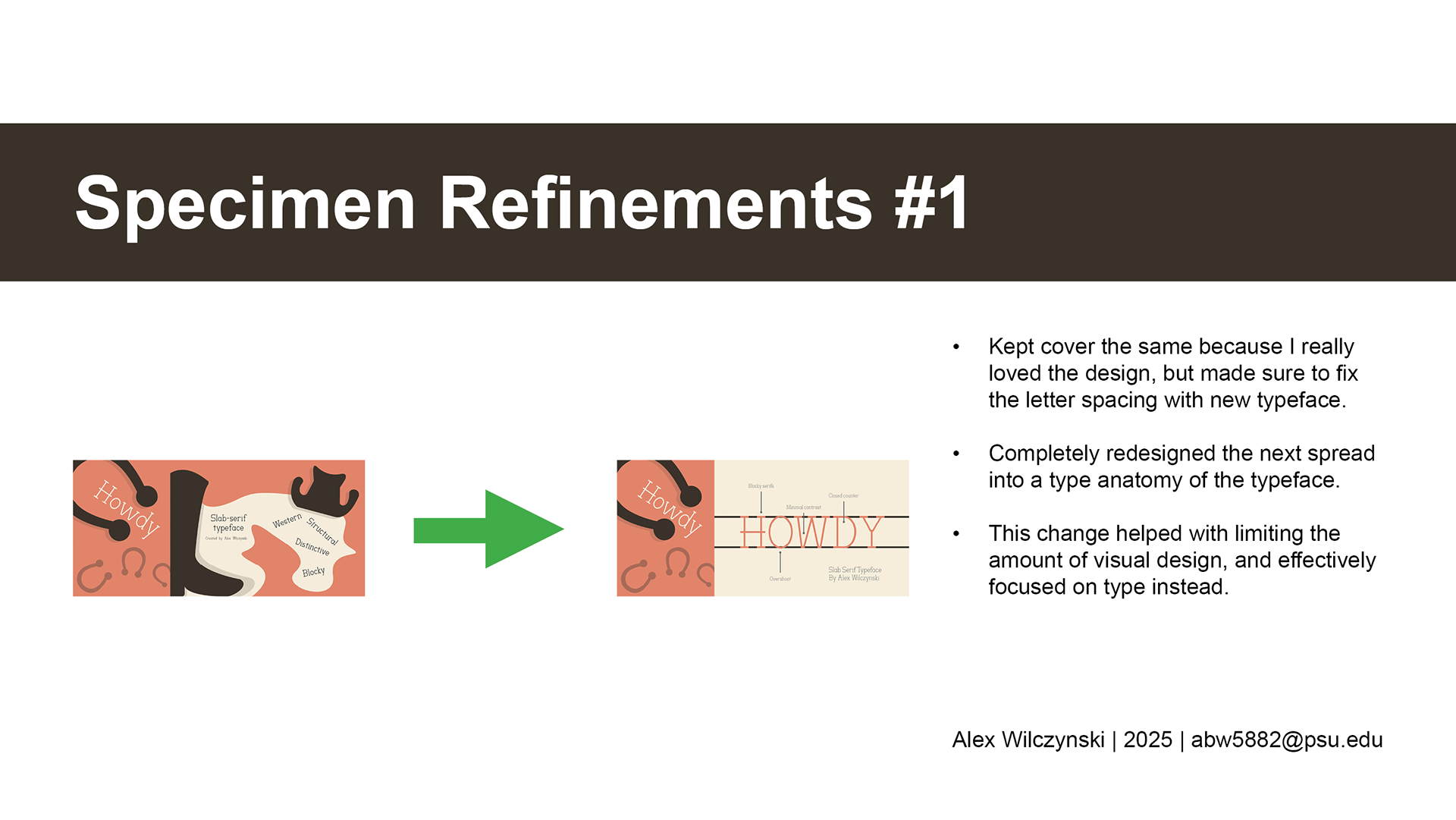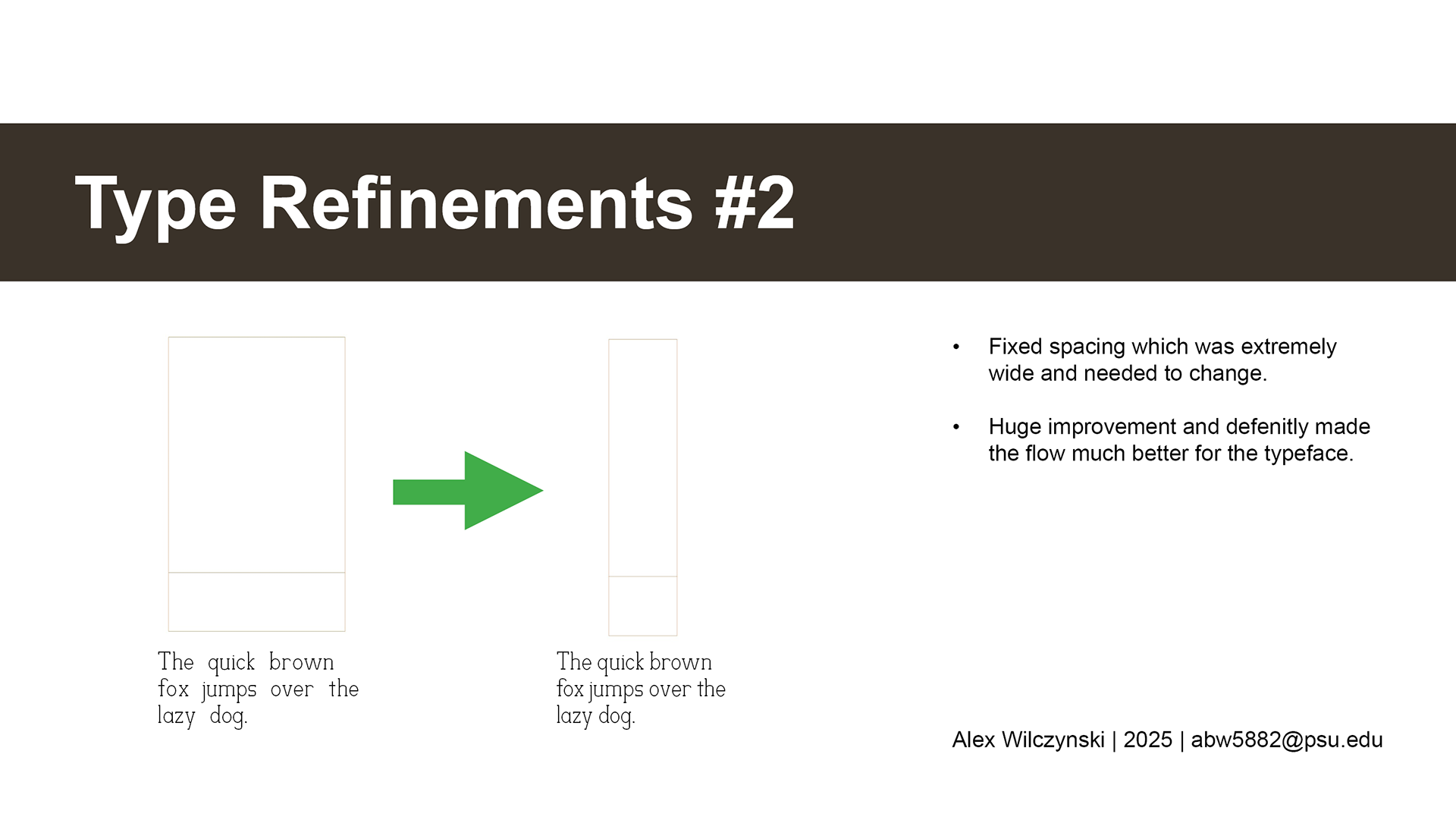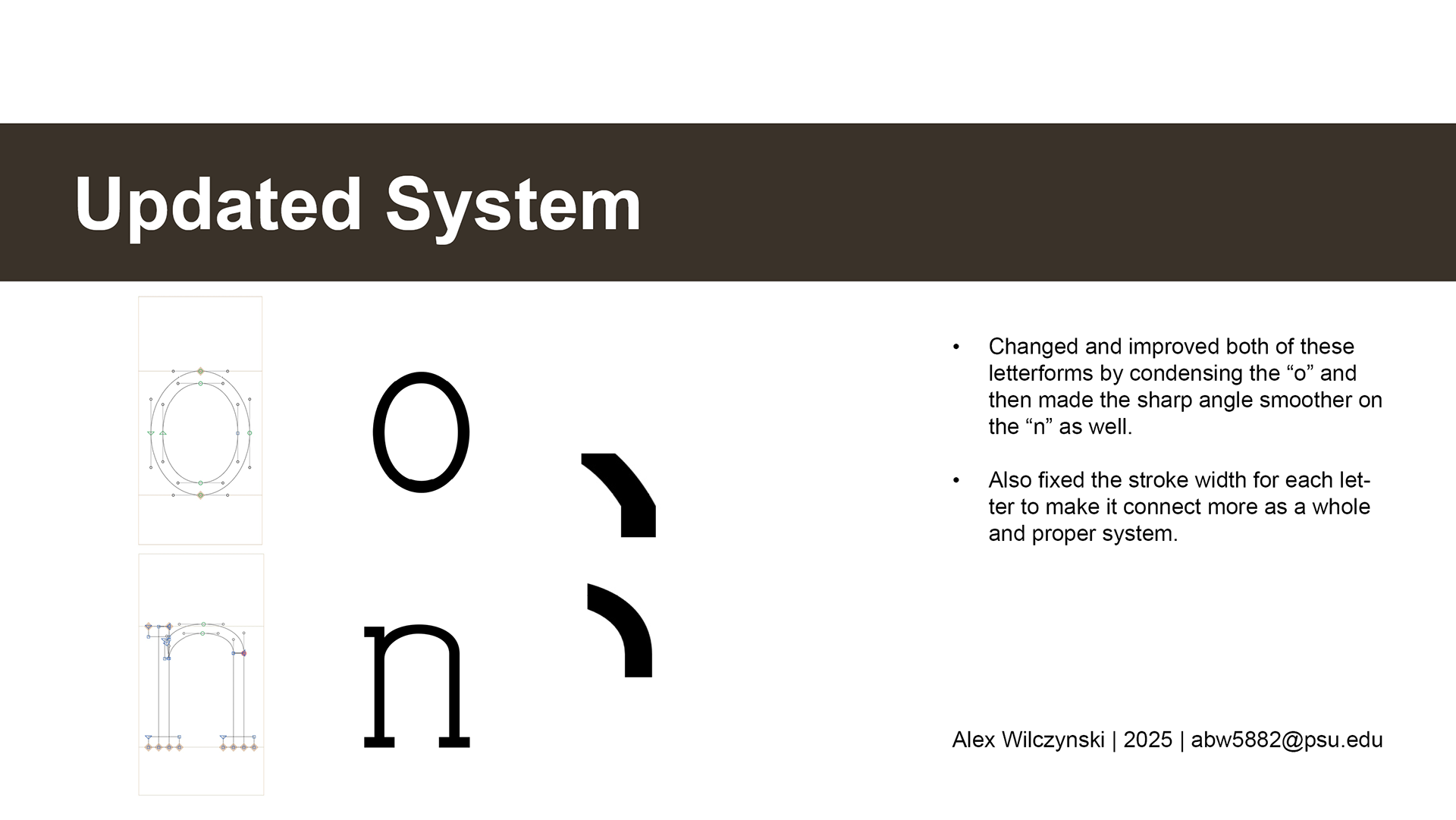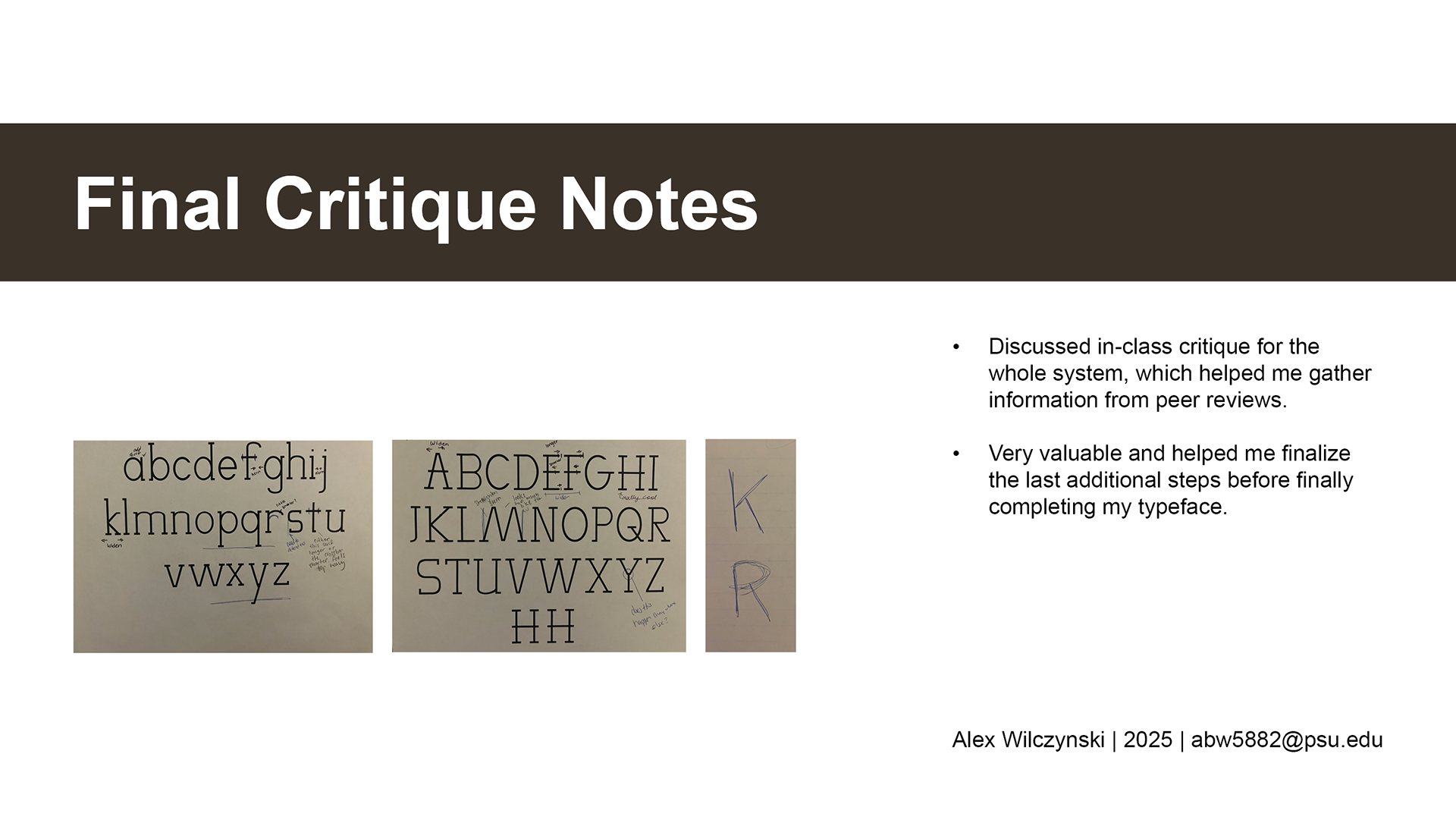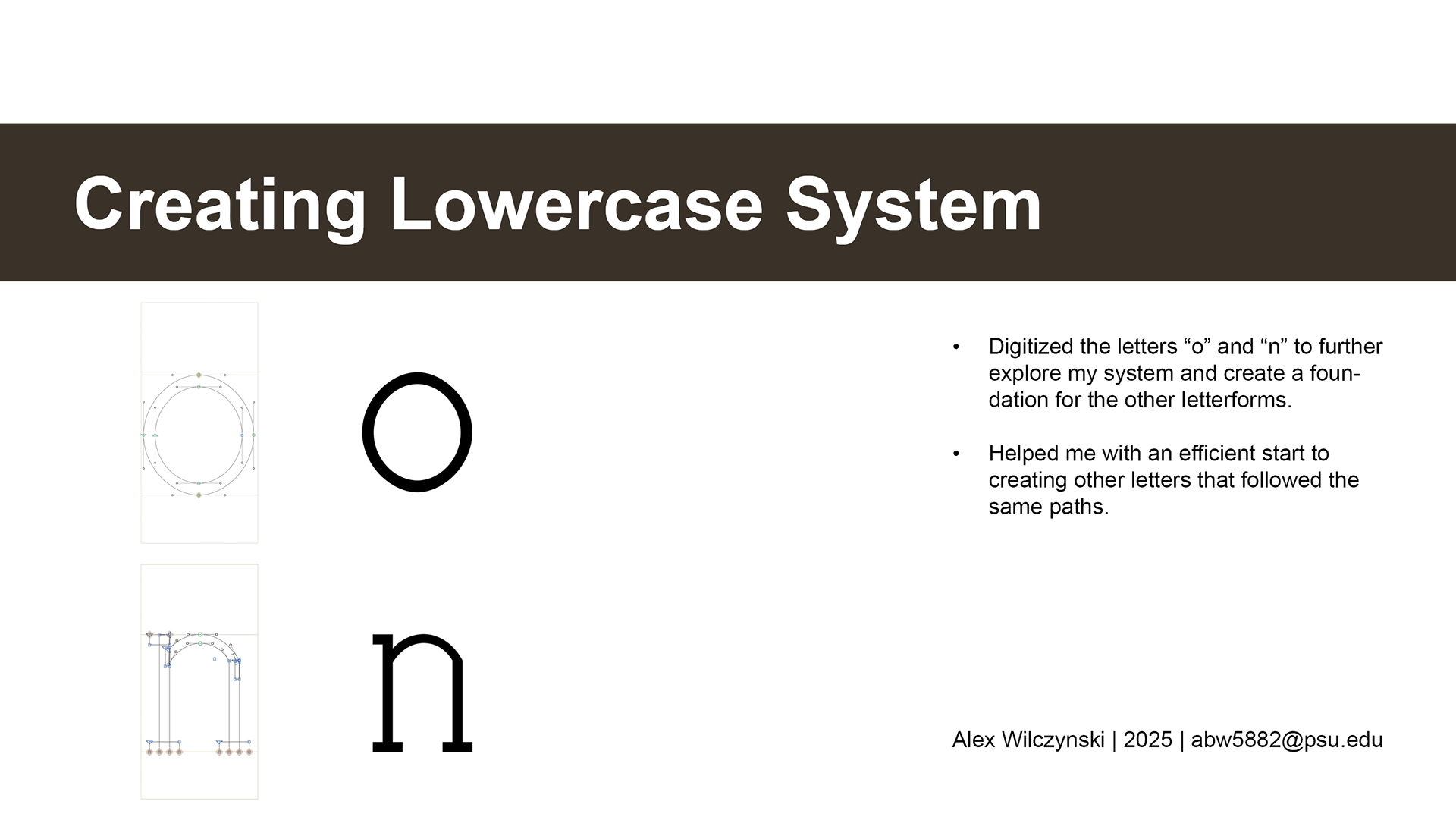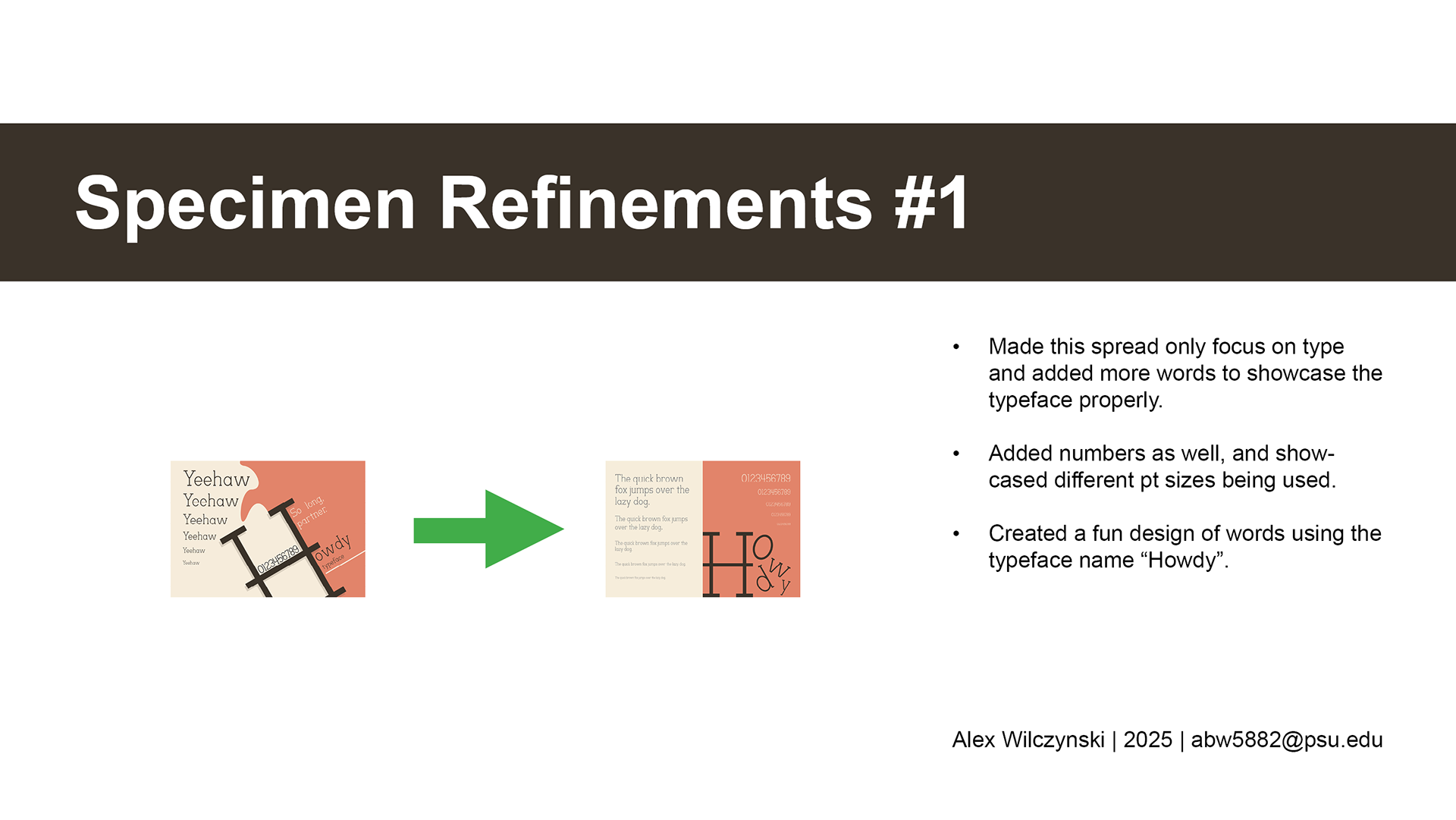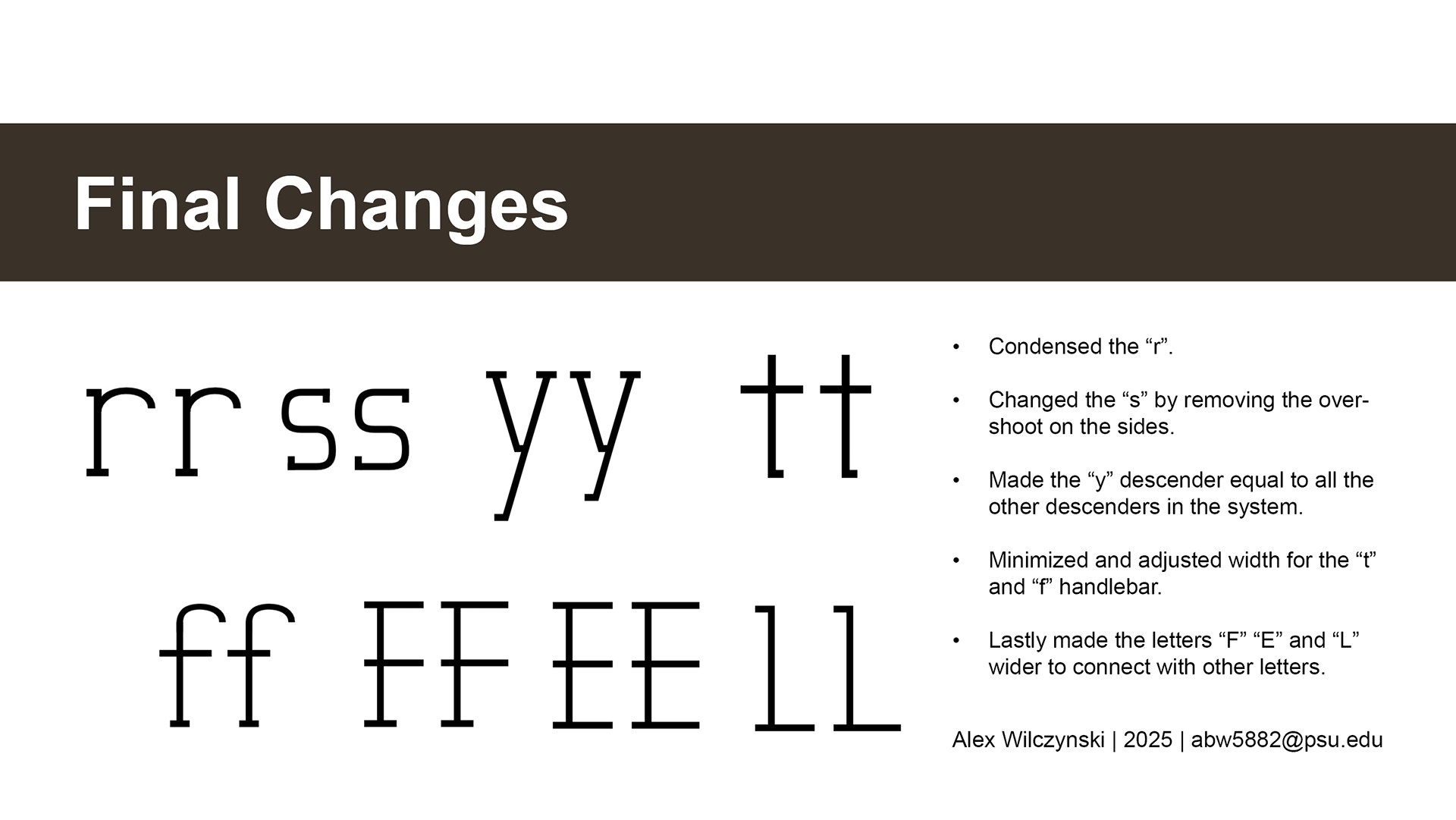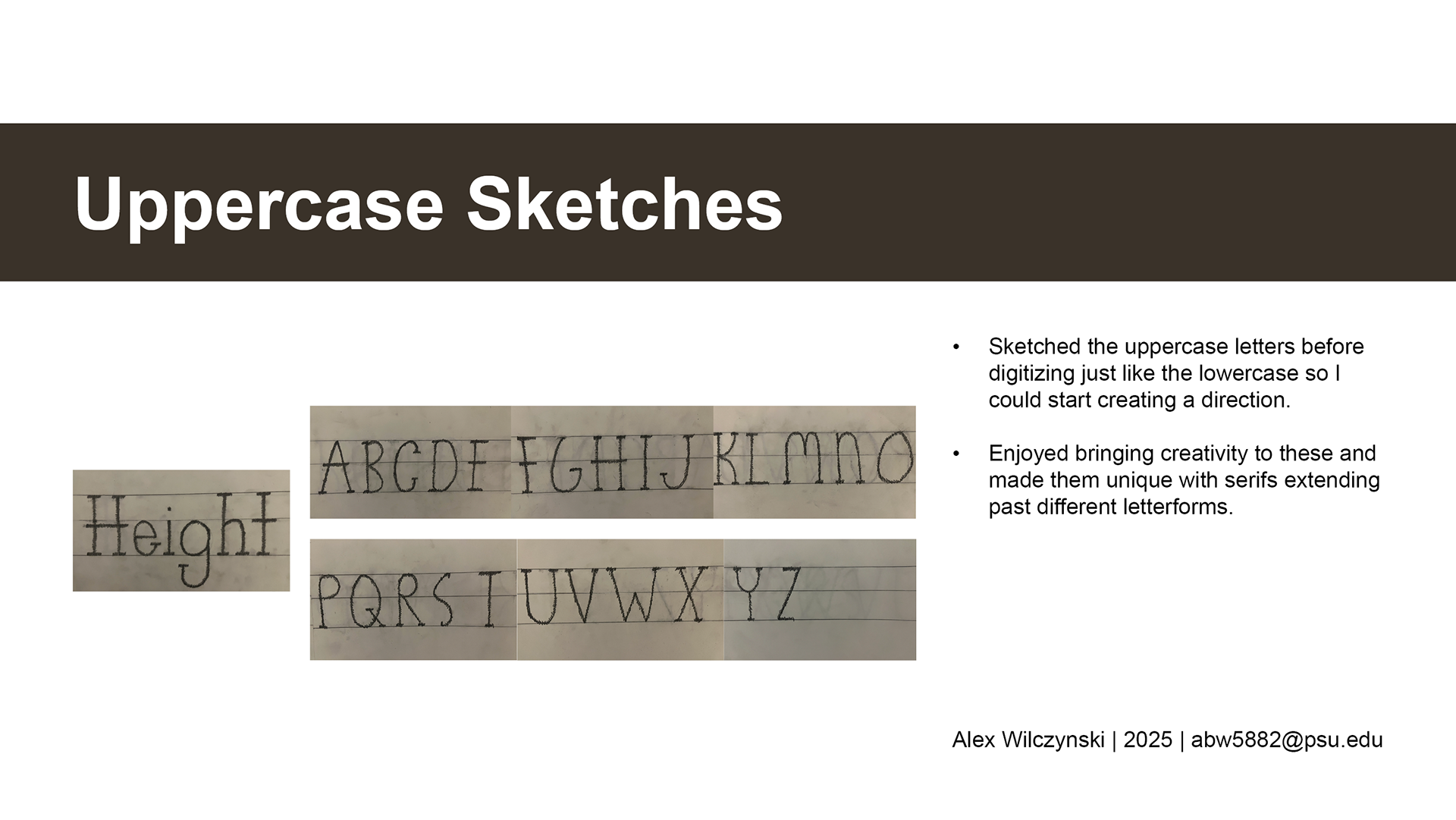
Howdy Typeface
Captured the bold and rugged look of traditional Western lettering. This custom typeface includes a complete set of uppercase and lowercase letters (A-Z), along with carefully considered system additions to expand its functionality and versatility. These letterforms emphasize strong slab serifs, geometric balance, and distinctive detailing in order to create the whole system.
Process Document
Below are the steps taken and achieved before the final design.